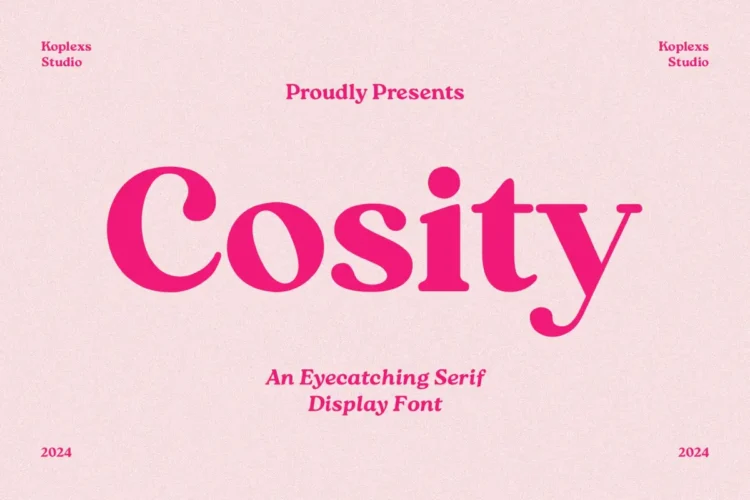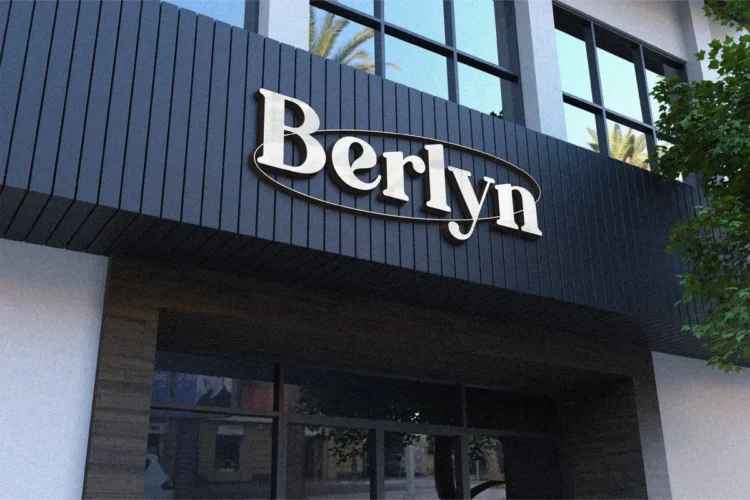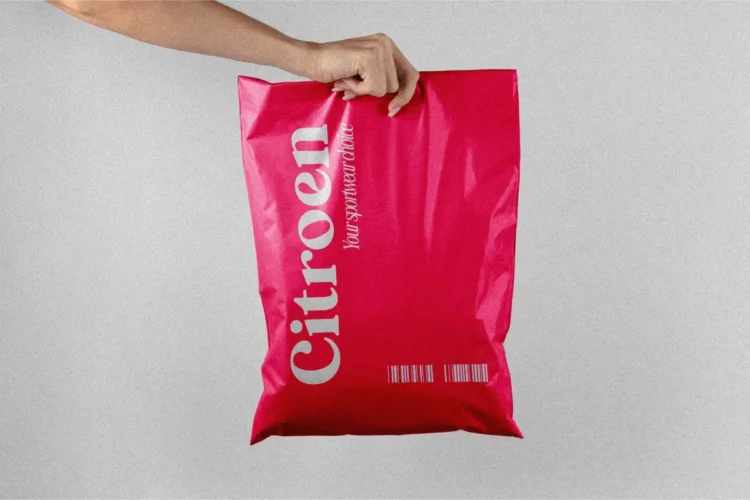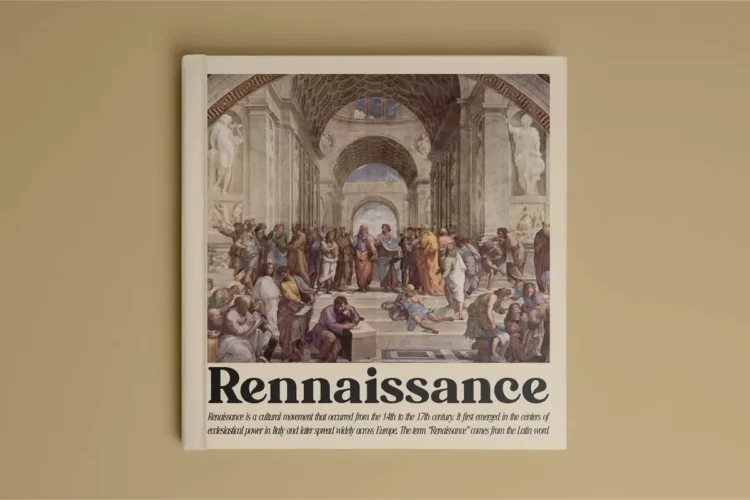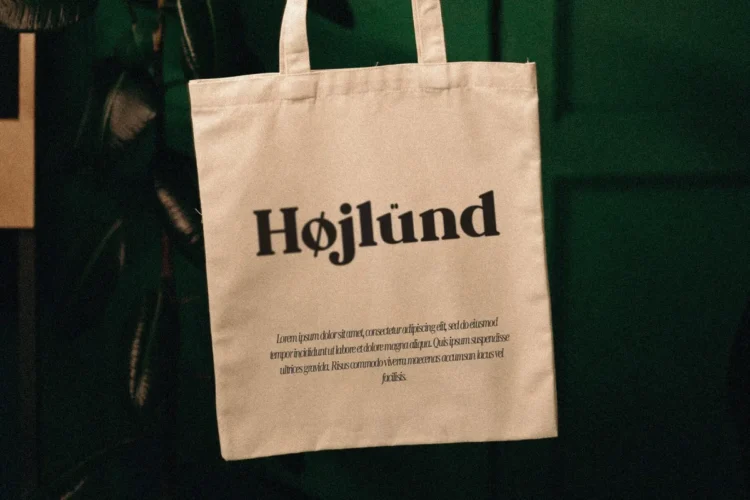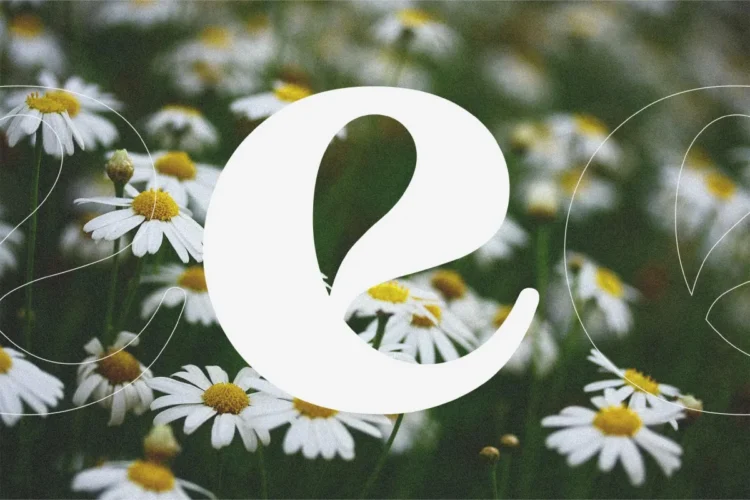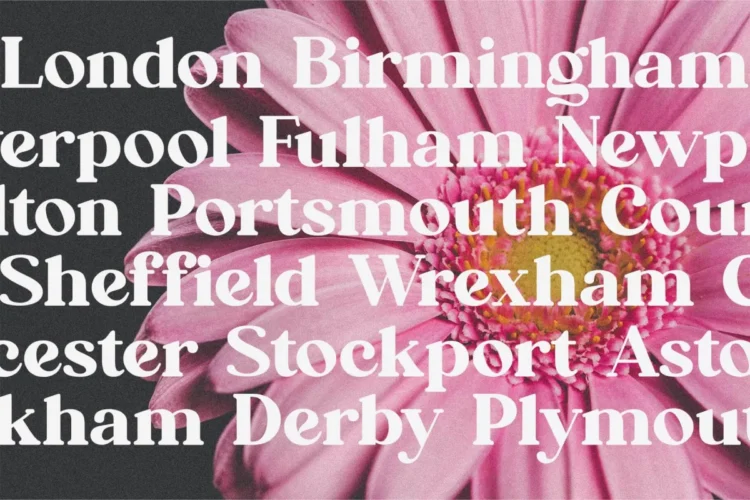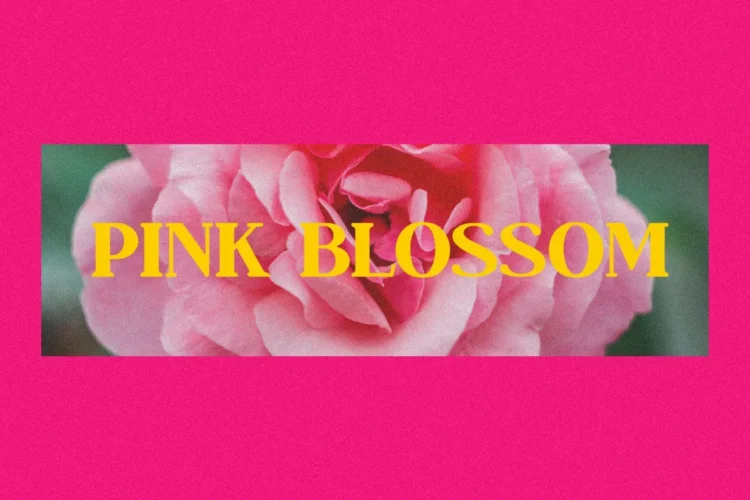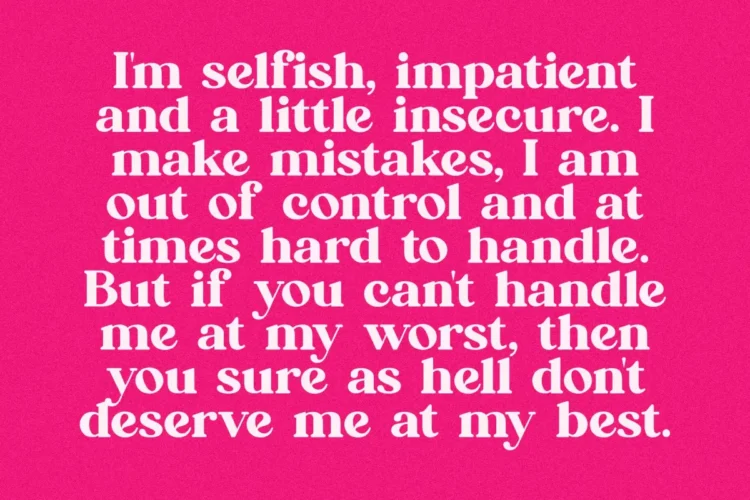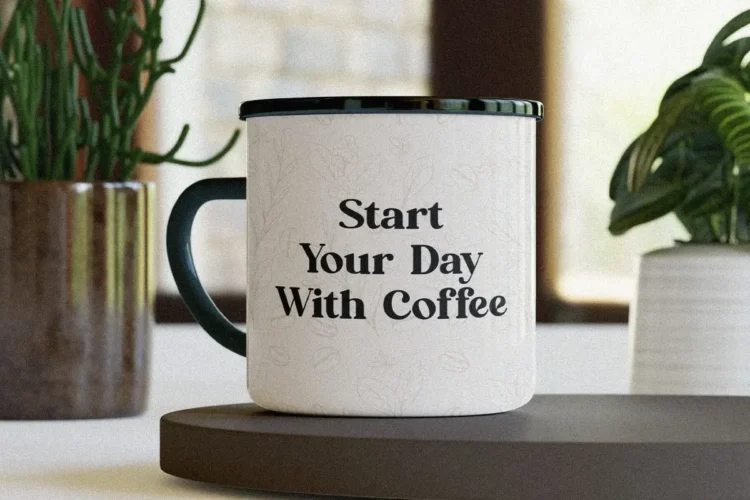
Cosity Font – Elegant Serif Font for Modern Branding & Luxury Design
Cosity Font is a serif font that blends timeless elegance with a bold modern touch, making it perfect for designers who want to stand out. This modern font is crafted with smooth curves, sharp details, and a strong personality—ideal as a branding font, cosmetic font, or even an aesthetic font for high-end visuals.
Its versatility allows it to shine as a logo font, headline font, and heading font, while maintaining the sophistication of an elegant font and the refinement of a luxury font. The bold strokes ensure visibility, making Cosity not only stylish but also practical for impactful typography.
- Alternates
- Ligatures
Cosity Font Perfect for :
Cosity Font is versatile and works beautifully for :
- Brand identity & corporate design
- Cosmetic & fashion packaging
- Luxury product branding
- Magazine headlines & editorial design
- Logos, posters, and social media graphics
- Wedding invitations & lifestyle aesthetics
Features of Cosity Font:
- Serif font with a modern, eye-catching style
- Works as both bold font and elegant font
- Ideal for headline fonts and heading fonts
- Combines classic aesthetic with a luxury, modern vibe
With its refined curves and stylish appeal, Cosity Font elevates any design into something memorable and professional. Whether you’re creating a luxury brand logo or designing aesthetic product packaging, this font will add sophistication to your projects.